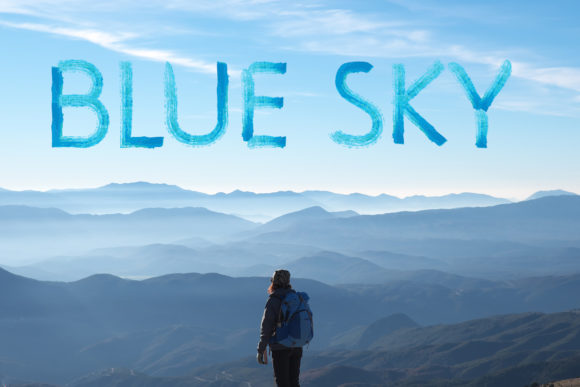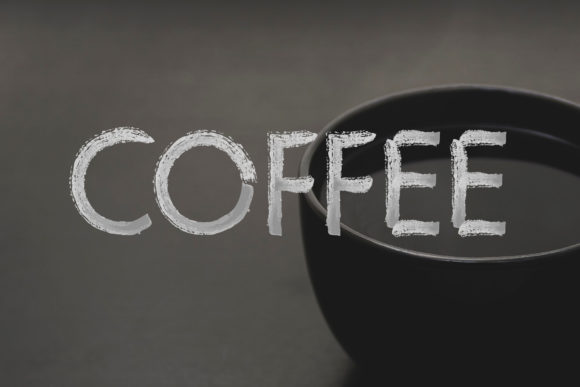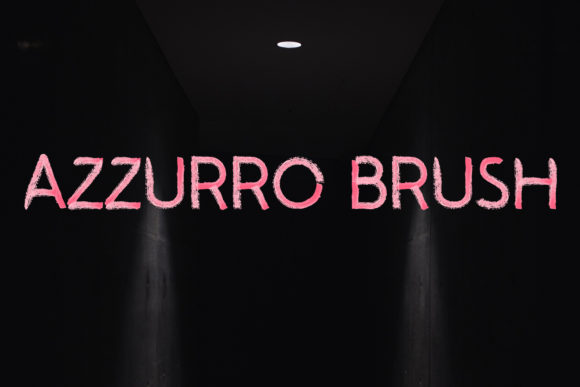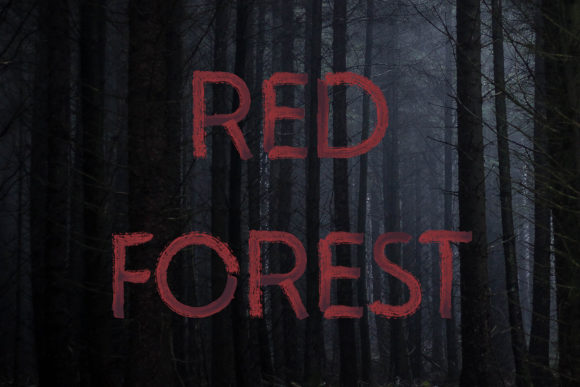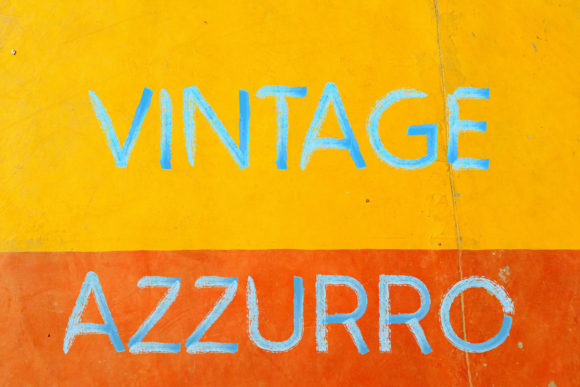
Azzurro Font: Elevate Your Designs with a Striking Oil Texture Font
Are you tired of using the same old fonts in your designs? Look no further than Azzurro, a stunning font that adds a touch of urban grit to any project. This large and attractive brush display font features a unique oil texture that gives it a rough, edgy style. Perfect for designers and crafters looking to add some personality to their work, Azzurro is a versatile font that can be used in a variety of applications.
What is Azzurro Font?
Azzurro is a color font, specifically designed as an Opentype-SVG file. This means it’s not just a simple text font, but a fully scalable vector graphic that can be used in a range of design software. The font is compatible with popular programs like PhotoShop, Illustrator, Silhouette, and Inkscape, making it easy to incorporate into your workflow.
Key Features of Azzurro Font
- Oil Texture:** Azzurro’s unique oil texture gives it a rough, urban feel that’s perfect for designs that need a bit of grit.
- Large and Attractive:** This brush display font is designed to make a statement, with bold lines and a confident style.
- Color Font:** As an Opentype-SVG file, Azzurro can be used in a range of design software, allowing for flexible color options and scalability.
What to Use Azzurro Font For
Azzurro’s versatility makes it suitable for a wide range of design applications. Here are some ideas to get you started:
- Posters:** Add a bold, eye-catching headline to your poster with Azzurro’s striking oil texture.
- Packaging:** Give your product packaging a unique, urban look with Azzurro’s rugged style.
- Advertisements:** Use Azzurro to create eye-catching ads that stand out from the crowd.
- Crafting:** Azzurro is perfect for crafters who want to add a personal touch to their projects, from scrapbooking to DIY signs.
Azzurro font is a game-changer for designers and crafters looking to add a touch of urban grit to their work. With its unique oil texture and versatile design, Azzurro is perfect for a wide range of applications. By understanding how to use this color font and taking advantage of its compatibility with popular design software, you can elevate your designs and take your creativity to the next level.